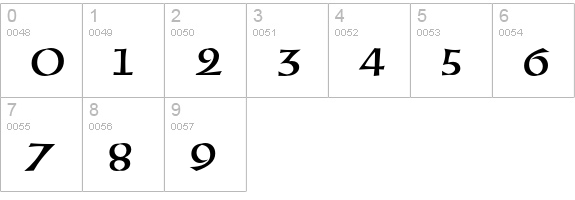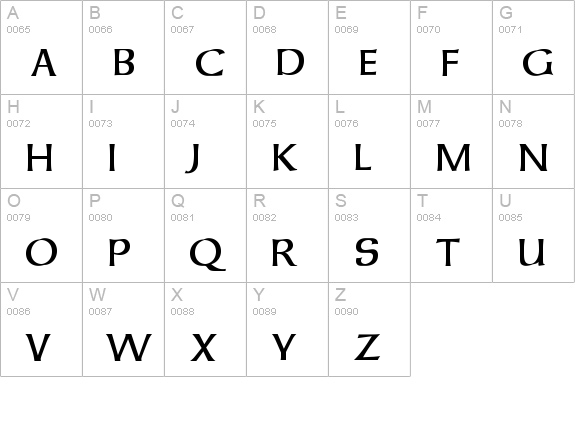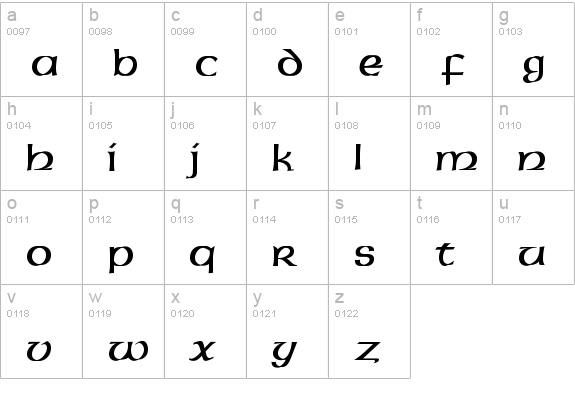
AT Uncial Std Font Details
AT Uncial Std is a beautifully crafted font that exudes elegance and charm. With its unique and distinctive style, this font is perfect for adding a touch of sophistication to any project. The flowing curves and intricate details of AT Uncial Std make it a versatile choice for a wide range of design applications. What's even better is that AT Uncial Std is available for free download at FontsMarket.com. This means that you can easily access this stunning font and incorporate it into your designs without any hassle. Whether you're working on a creative project or looking to enhance your branding, AT Uncial Std is sure to make a lasting impression. Download it today and elevate your design work to the next level.